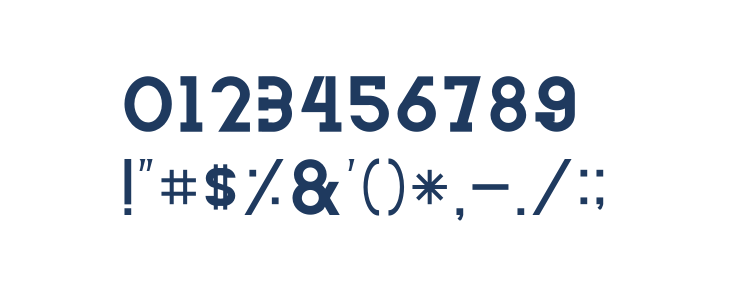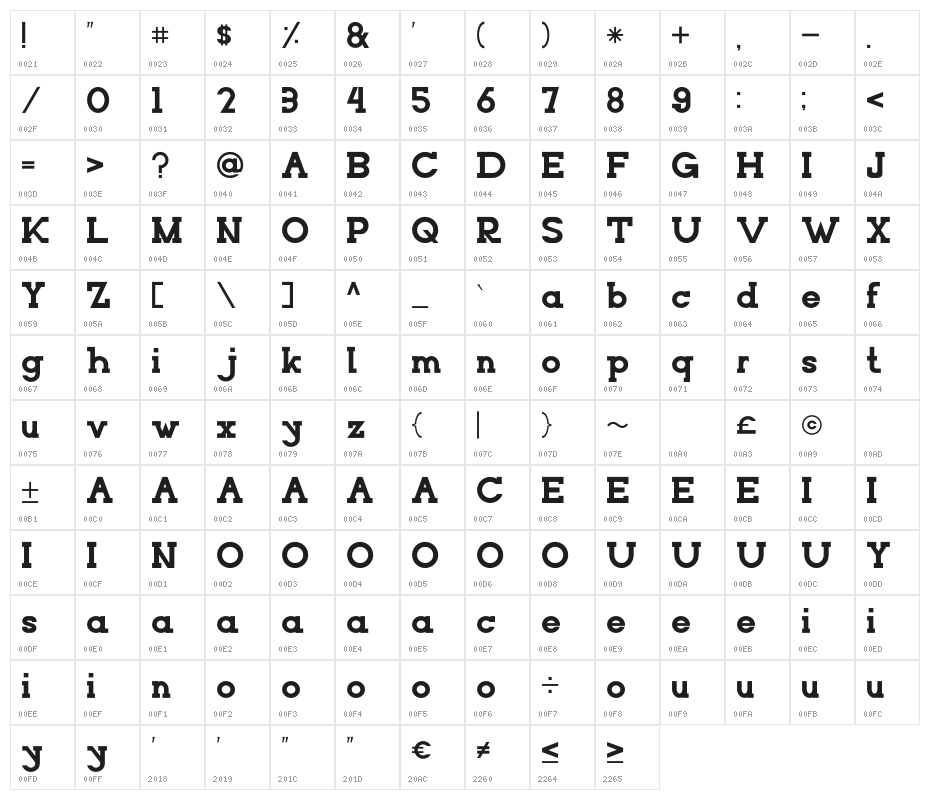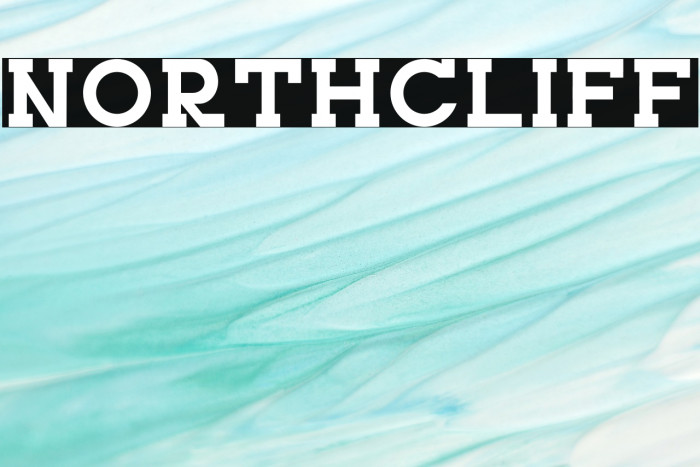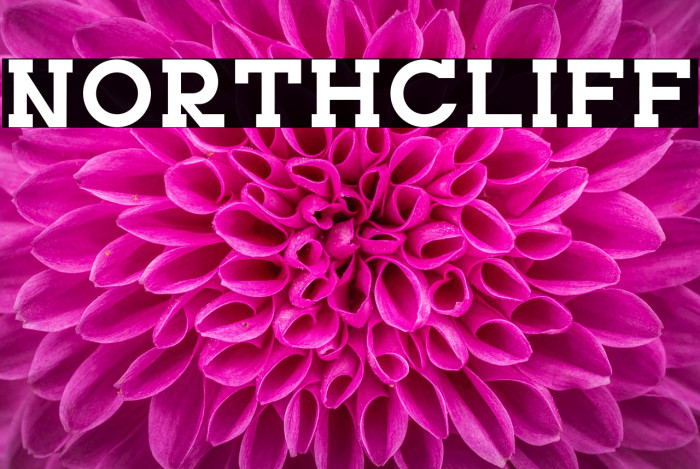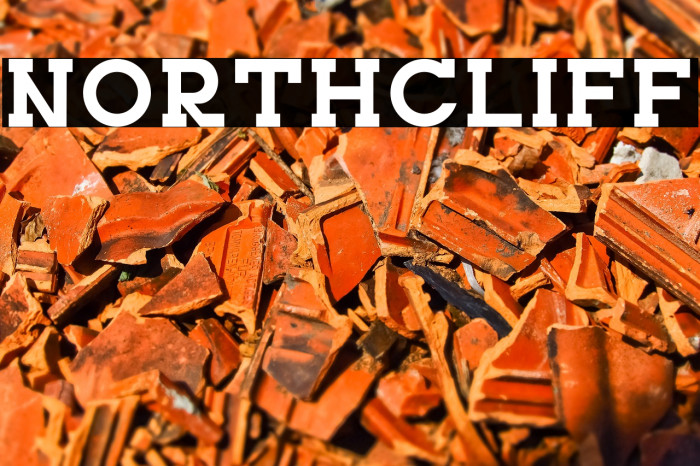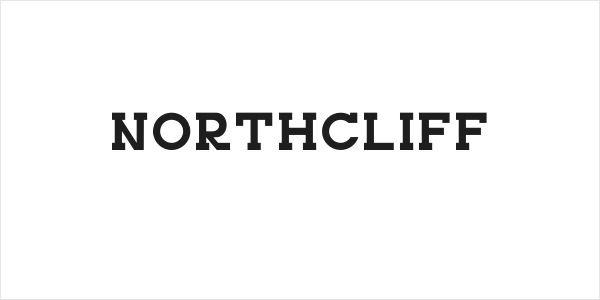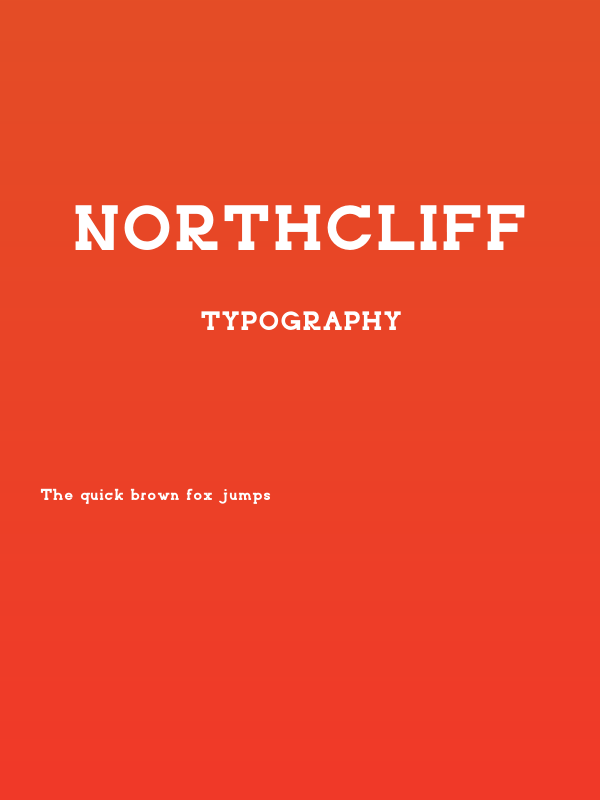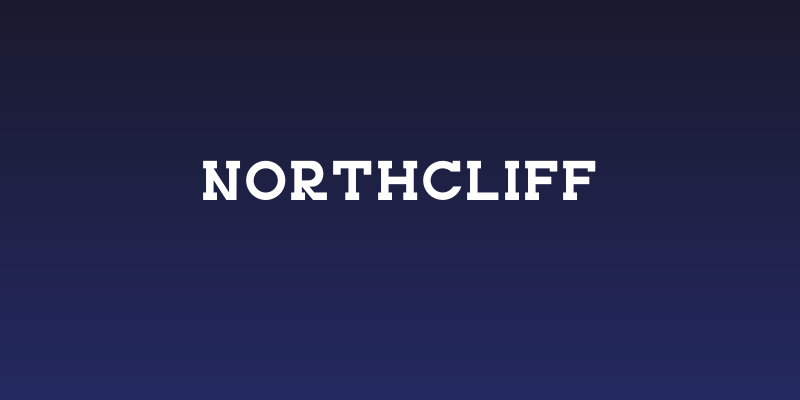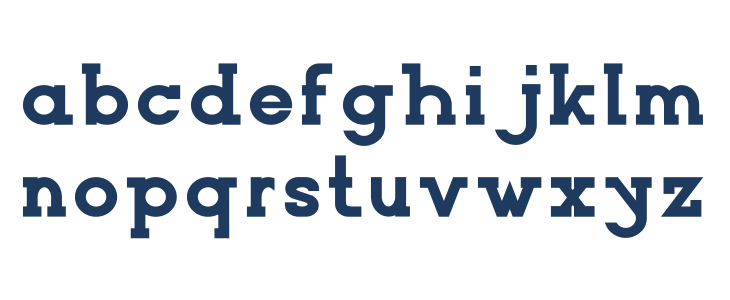
NORTHCLIFF Font
NORTHCLIFF Description
This font exhibits a bold and robust slab serif style, characterized by thick, block-like serifs and a strong presence. The uppercase letters are uniform and balanced, with a consistent stroke weight that conveys stability and confidence. The lowercase letters maintain the same boldness, with rounded edges that soften the overall appearance. Numbers are clear and legible, matching the boldness of the alphabet. Special characters are well-integrated, maintaining the font's cohesive look. The font's design is ideal for making a strong visual impact, suitable for various applications where readability and emphasis are key.
| Proposed Projects | Ideal for headlines, posters, branding, and any project requiring a bold, impactful typeface. |